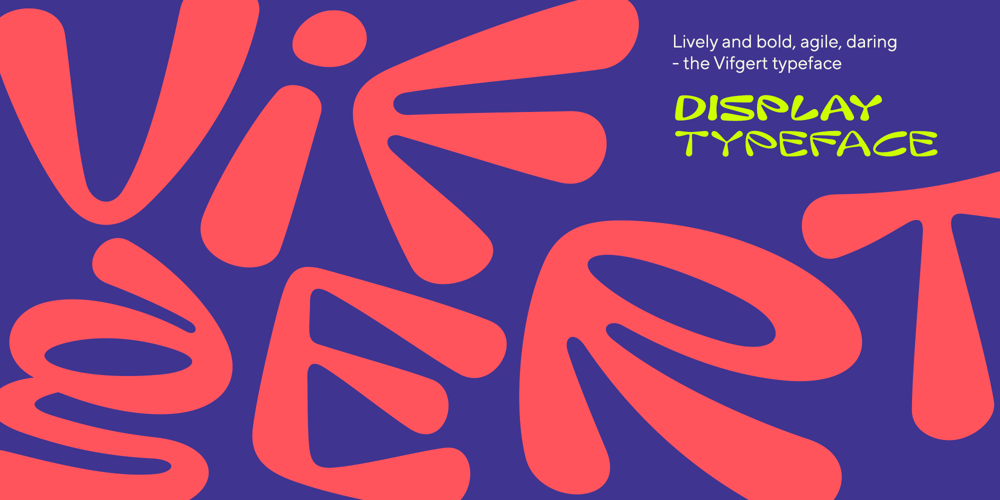
Vifgert
Vifgert font
Vifgert Font Family was designed by Oleg Gert and published by Oleg Gert. Vifgert contains 3 styles and family package options. Inspired by the playful leaps of cats and flying water drops, Vifgert is perfect for website headlines, magazines, product packaging titles and branding. The family includes three weights that complement each other perfectly – Regular, Bold and Light, which, thanks to its vanishing thinness, is suitable for short words.